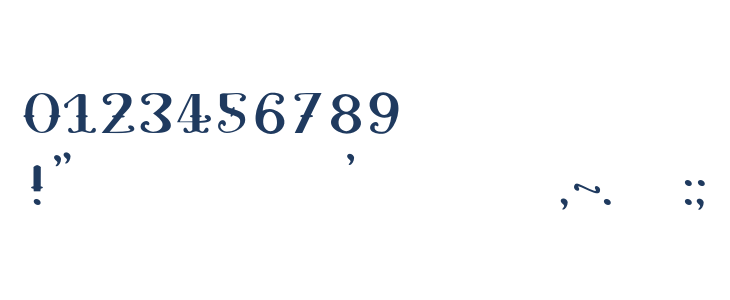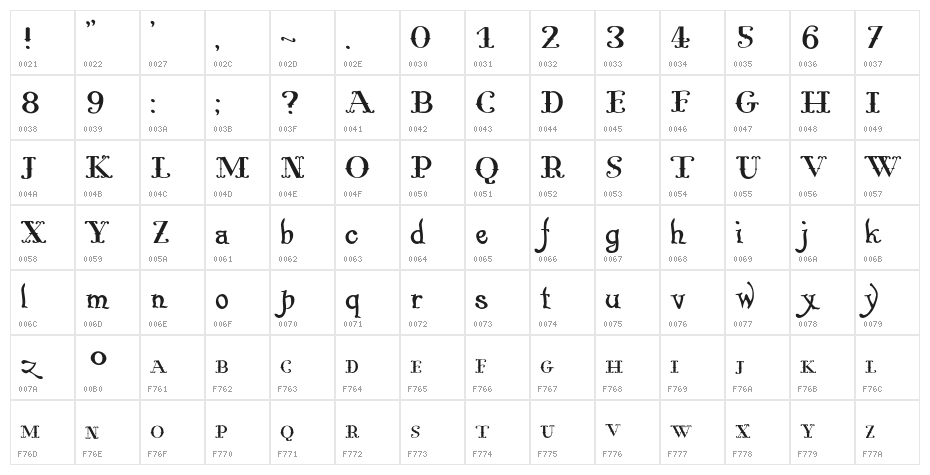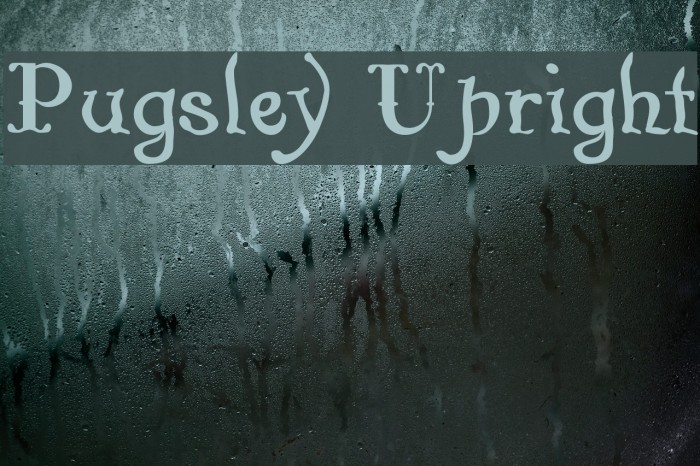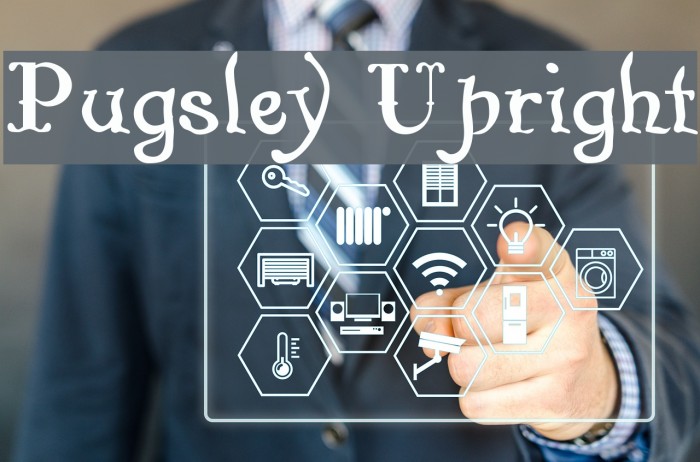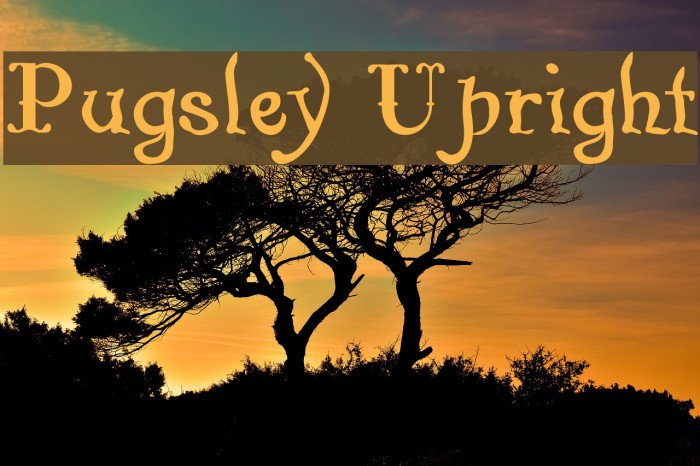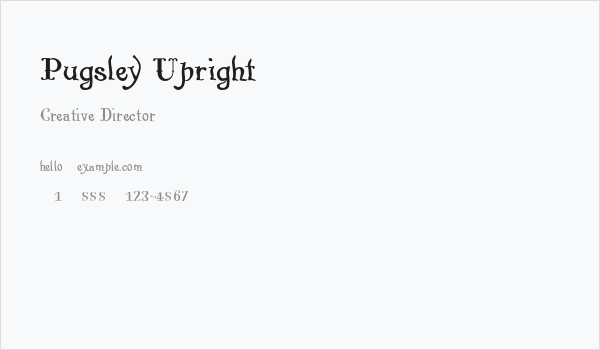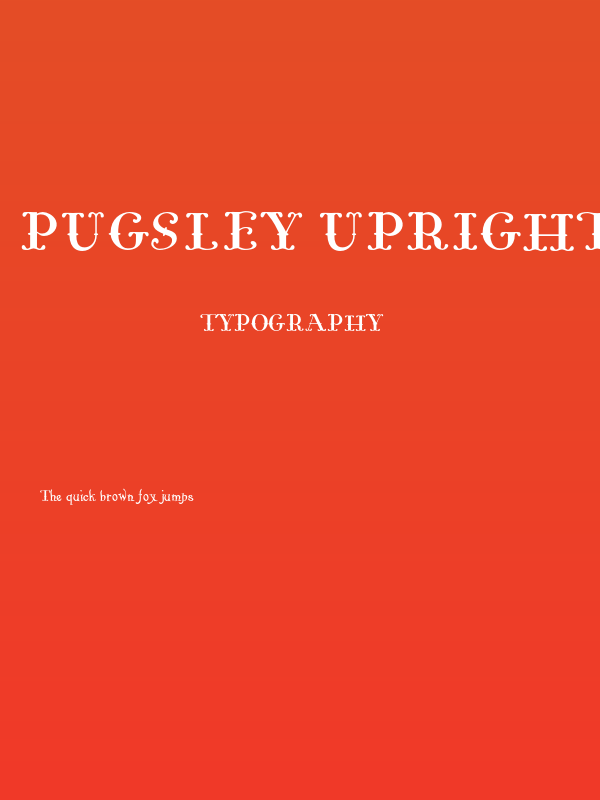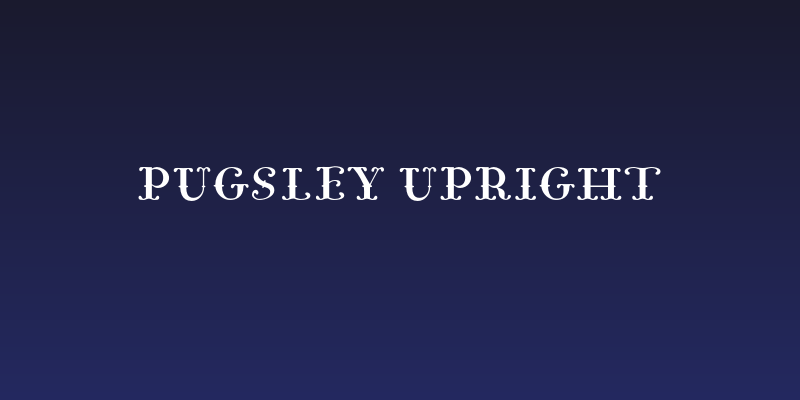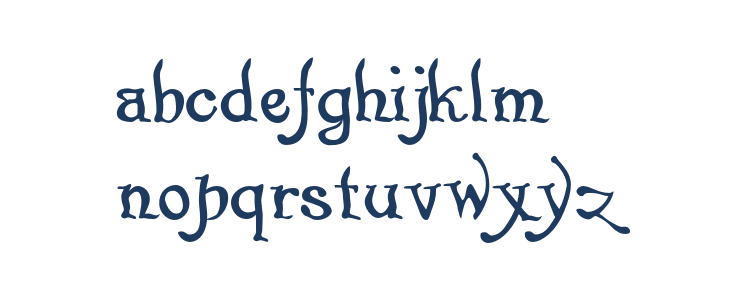
Pugsley Upright Font
Pugsley Upright Description
This font features a whimsical and decorative style with unique, playful elements. The uppercase letters are adorned with small, circular embellishments that add a touch of elegance and flair. The lowercase letters maintain a consistent, flowing form, with some characters exhibiting slight curls and swirls, enhancing the font's playful nature. The numerals are bold and distinct, each with a subtle decorative twist that complements the overall style. Special characters follow the same decorative theme, making them stand out while maintaining cohesion with the rest of the font. This font's unique design makes it ideal for creative and artistic projects.
| Use Case | Headlines, Artistic projects, Invitations |
| Proposed Projects | Ideal for invitations, greeting cards, posters, and artistic branding projects. |